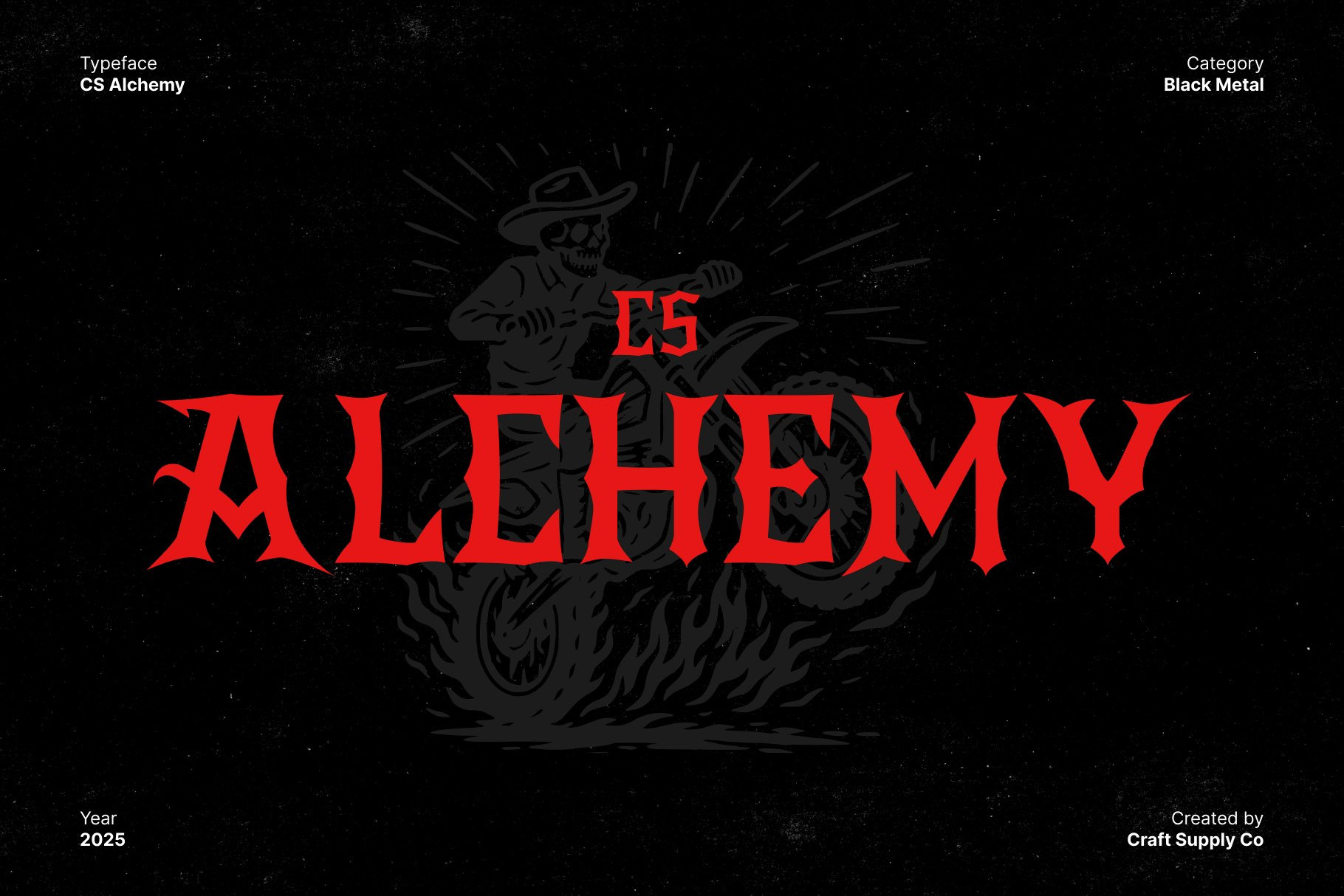
CS Alchemy – Black Metal Font
CS Alchemy: The Essence of Chaos and Power
Black Metal Display Font with Raw Intensity This is a black metal display font that embodies the raw energy and rebellious nature of extreme music. With jagged spikes, chaotic strokes, and sharp edges, this font radiates darkness, aggression, and untamed creativity. Every letterform is crafted to evoke the primal essence of black metal aesthetics bold, menacing, and unapologetically fierce.
Aggressive Letterforms with Chaotic Energy The core of this font lies in its uneven, spiked structure and distorted rhythm, giving it a wild and anarchic presence. The deliberate roughness and asymmetry add depth and character, making it a perfect representation of rebellion and intensity. Its visual chaos captures attention instantly, making it ideal for projects that aim to provoke and dominate.
Dark Aesthetic with Artistic Expression More than just aggressive, this font also embraces an artistic side of darkness. Its intricate details and handcrafted texture showcase a sense of artistry beneath the chaos reflecting both the brutality and beauty found in heavy music culture.
Perfect for Bold, Edgy Projects Designed for band logos, metal posters, album covers, or underground fashion branding, this font is made to stand out in extreme creative spaces. Whether you’re designing for a black metal band, a dark art showcase, or an avant-garde event, this font injects raw power and authenticity into every design.